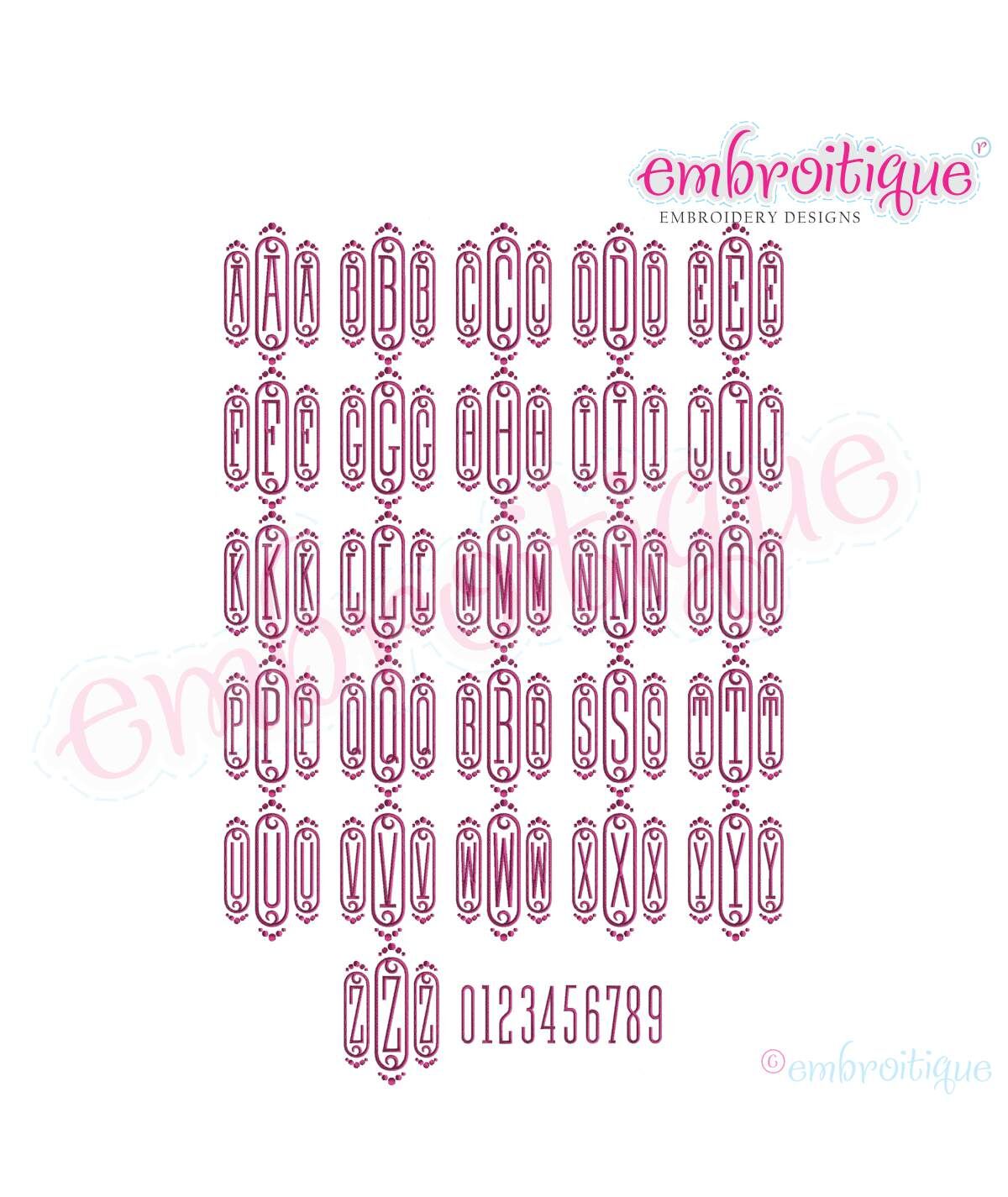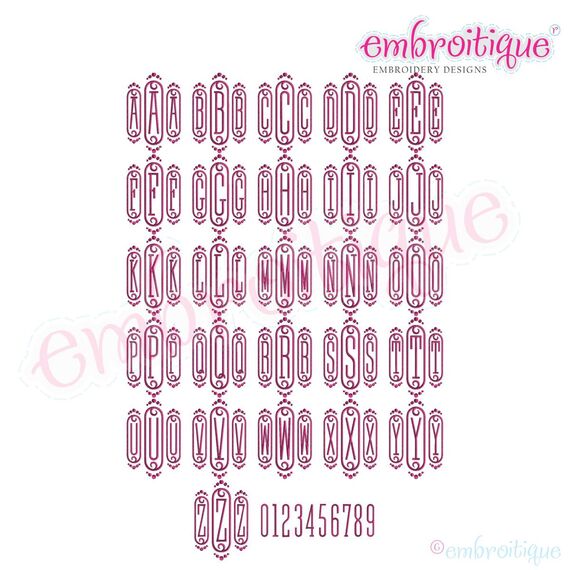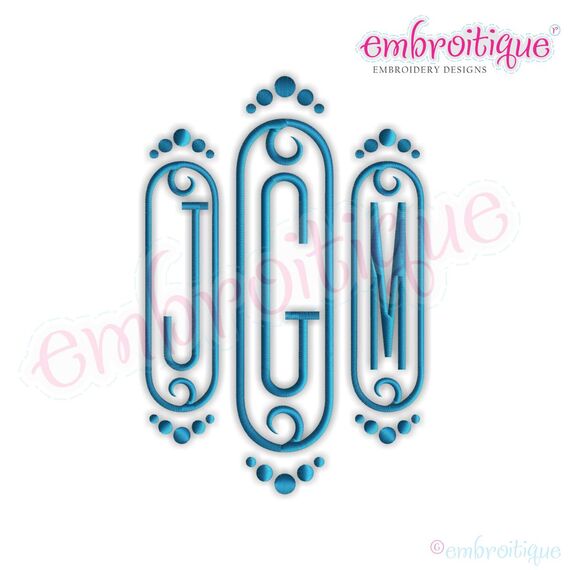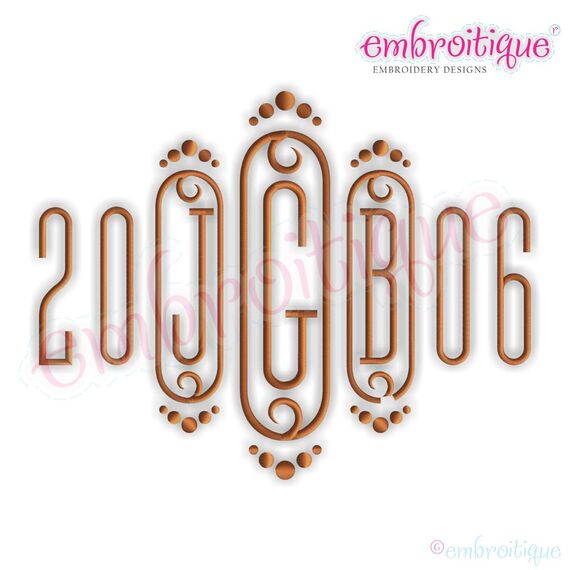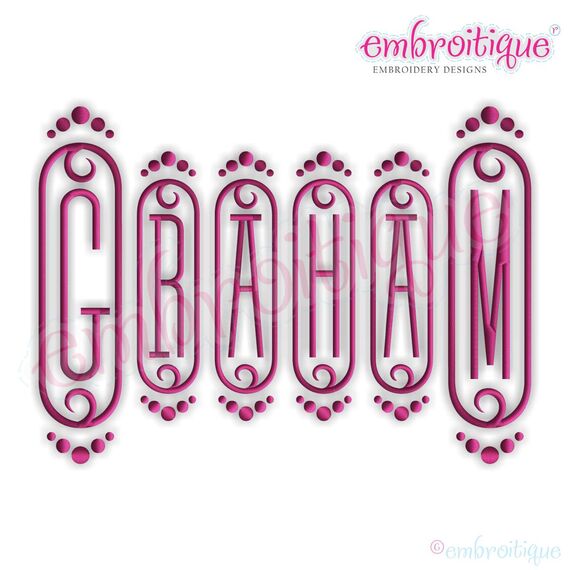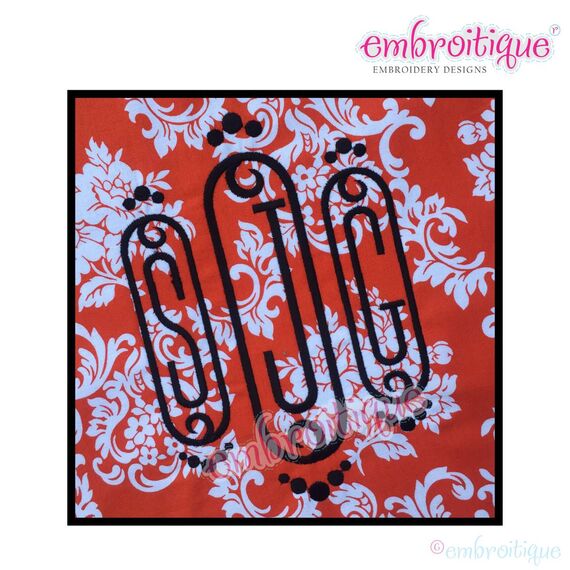
Cameo Decorative Initial Monogram Set - SMALL - 2" 3" 4" Sizes Included Embroidery Alphabet Font Letters
Such a beautiful decorative set to monogram initials, names & more. You will love how versatile this set is...weddings, anniversaries, birthdays - you name it! Click through the listing pictures for a few different ways to use this set!
Aa-Zz 0-9 in all sizes